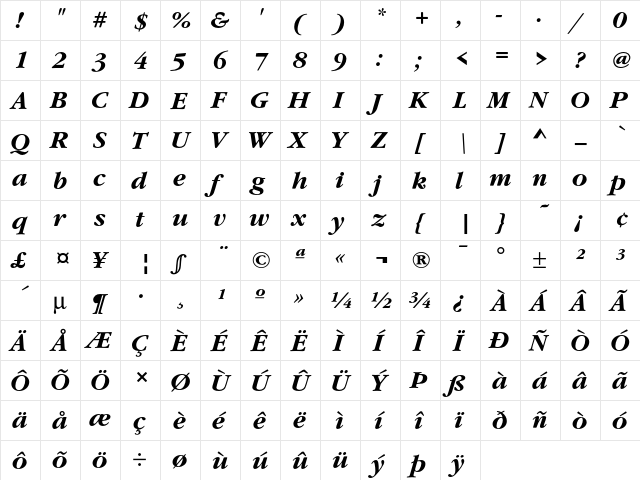
GaramItcTBolIta Regular Font Preview
GaramItcTBolIta Regular
Design Context for GaramItcTBolIta Typeface
GaramItcTBolIta offers clean, dependable letterforms without strong stylistic allegiance, making it a practical choice for designers who need flexibility.